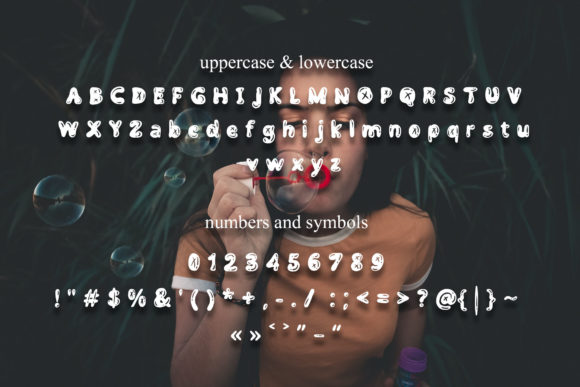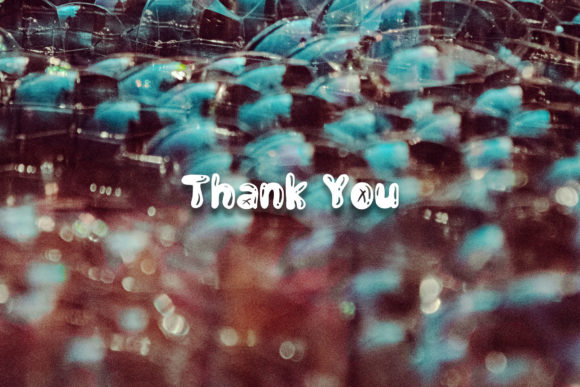
The Magic of Black Bubbles Font: Elevate Your Designs with Whimsy and Charm
I’ll never forget the time I was working on a project for a client’s birthday party invitation. I had the design concept nailed down, but something was missing – the perfect font. I scoured the internet, tried out dozens of fonts, but none seemed quite right. That was until I stumbled upon Black Bubbles Font. ✨ It was love at first sight! The playful, bubbly texture instantly added a touch of whimsy to my design, and I knew I had found the perfect fit.
An Honest Review of Black Bubbles Font
• ✨ Unique and eye-catching design that’s sure to make your projects stand out
• ✅ Perfect for a variety of design projects, including invitations, greeting cards, branding materials, business cards, quotes, posters, and more!
• 💬 Works beautifully for both digital and print designs
• 🎉 Easy to read and understand, even in smaller font sizes
While Black Bubbles Font is an amazing addition to any design project, there are a few things to keep in mind: 🤔
• ⚠️ Some of the more intricate details may get lost when used in very small font sizes
• ⚠️ May not be the best choice for body text or longer blocks of text, as it’s more suited for headings and titles
The Story Behind Black Bubbles Font
Black Bubbles Font was designed with the intention of creating a unique and eye-catching font that would add a touch of whimsy to any design project. The designer, inspired by the playful and carefree nature of childhood, set out to create a font that would evoke feelings of joy and wonder. With its bubbly texture and playful charm, Black Bubbles Font is sure to bring a smile to anyone’s face. 😊
Q: What type of designs is Black Bubbles Font best suited for?
A: Black Bubbles Font is perfect for a variety of design projects, including invitations, greeting cards, branding materials, business cards, quotes, posters, and more!